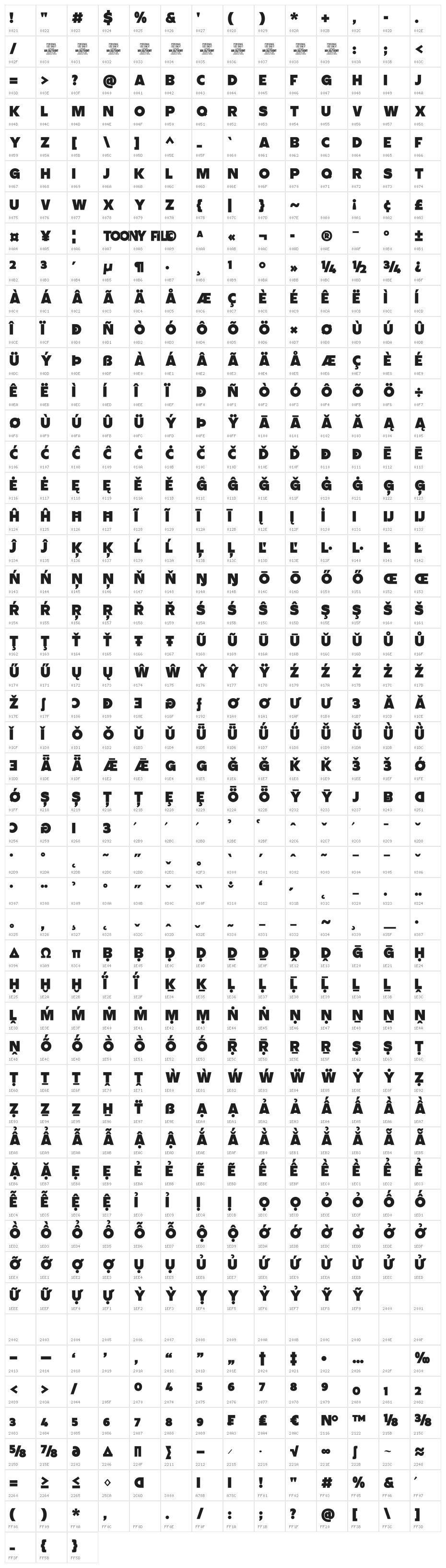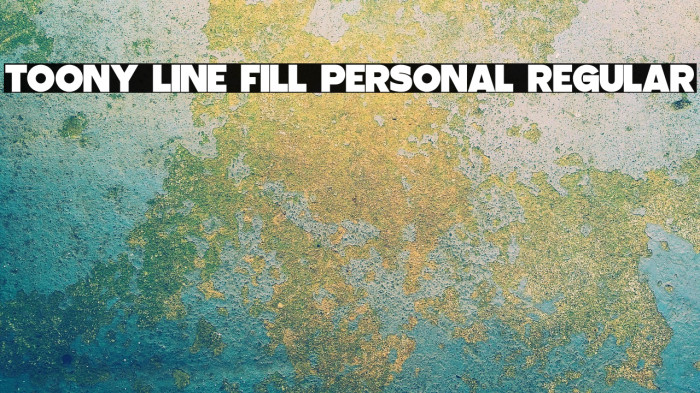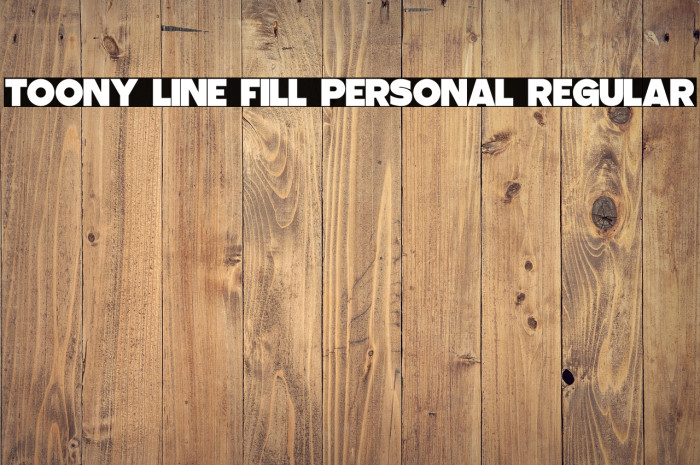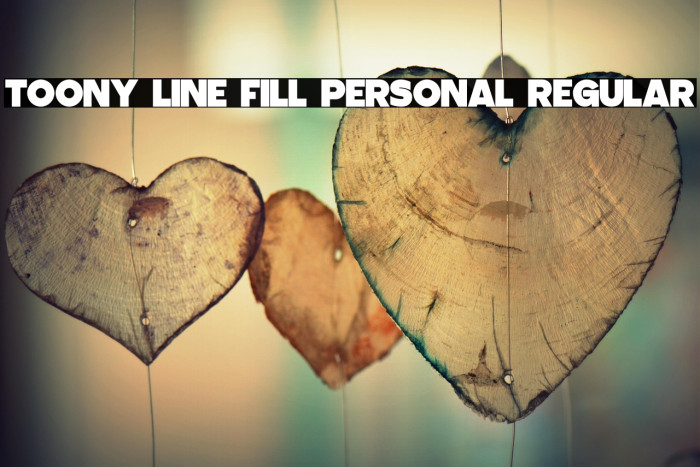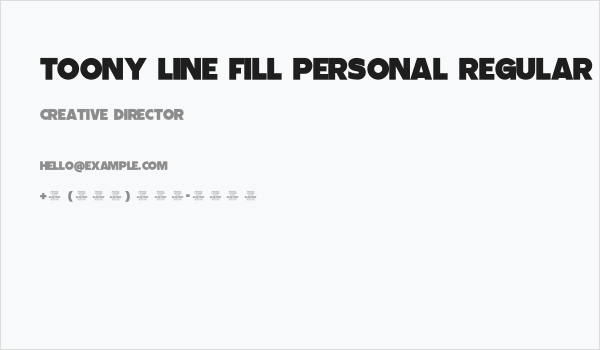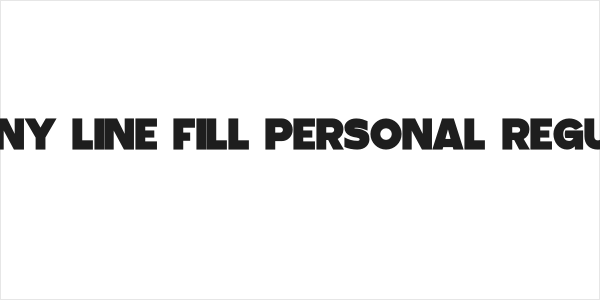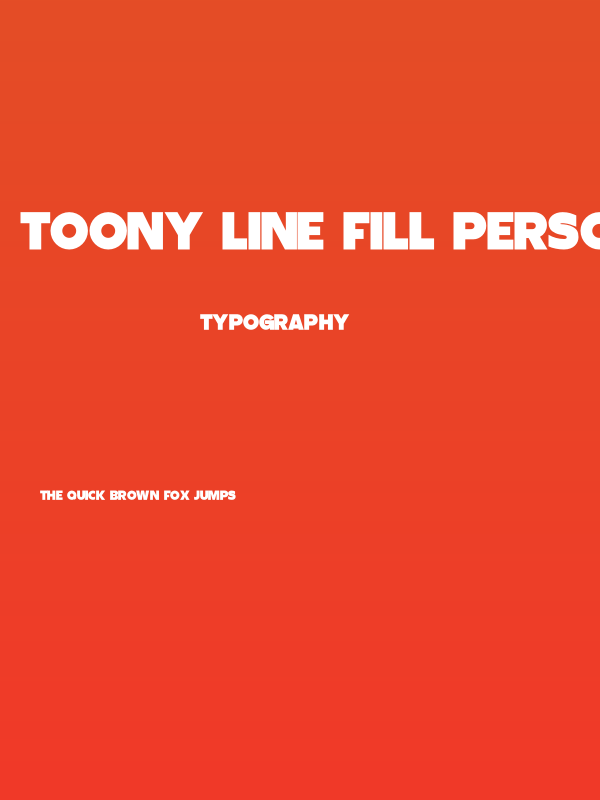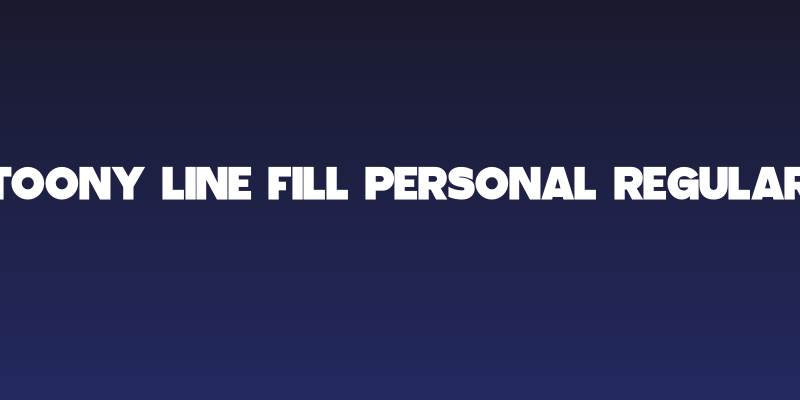
Toony Line Fill PERSONAL Regular Font
Toony Line Fill PERSONAL Regular Description
This font features bold, thick strokes with a strong presence, making it ideal for attention-grabbing designs. The characters are uniformly wide, with a consistent weight that gives a sense of stability and strength. The uppercase letters are particularly prominent, with a geometric style that is both modern and assertive. The lowercase letters maintain the same boldness, ensuring readability and impact. The numbers and special characters are designed to match the overall bold aesthetic, making them suitable for a variety of uses. This font is perfect for projects that require a strong visual impact.
| Proposed Projects | Ideal for posters, headlines, logos, and branding materials that require a bold statement. |